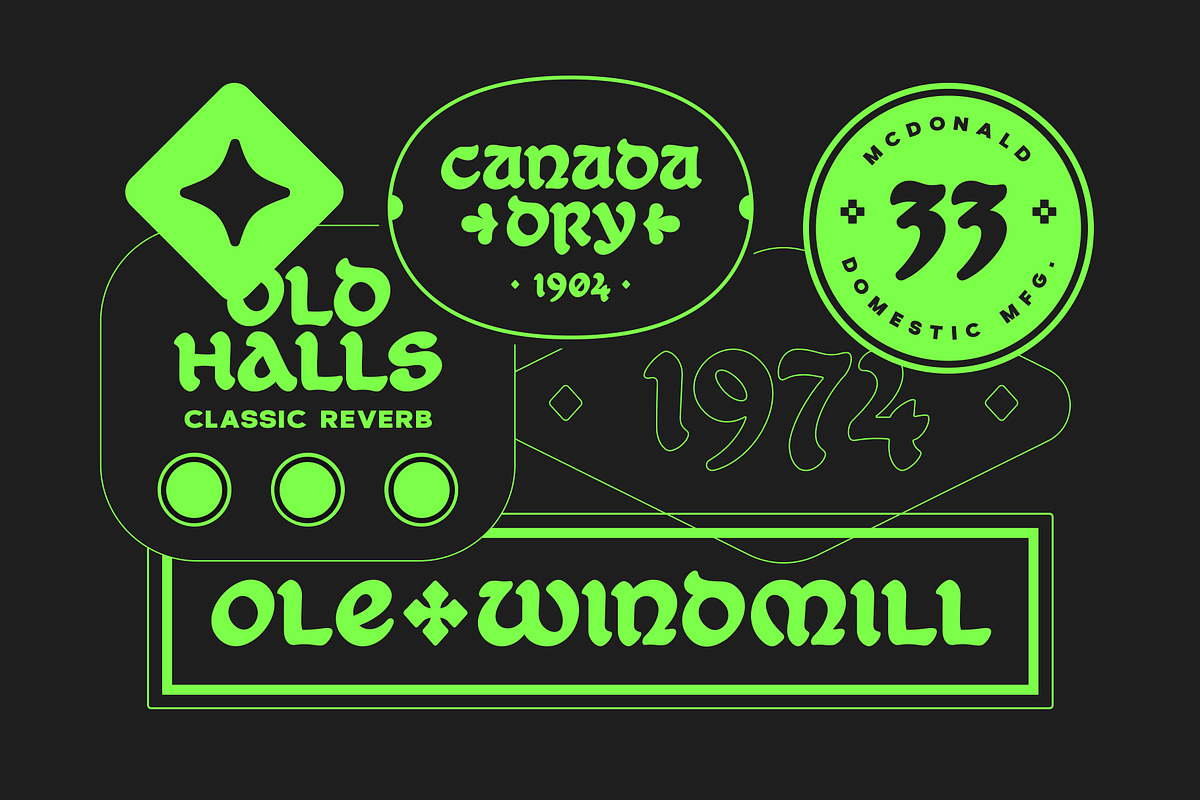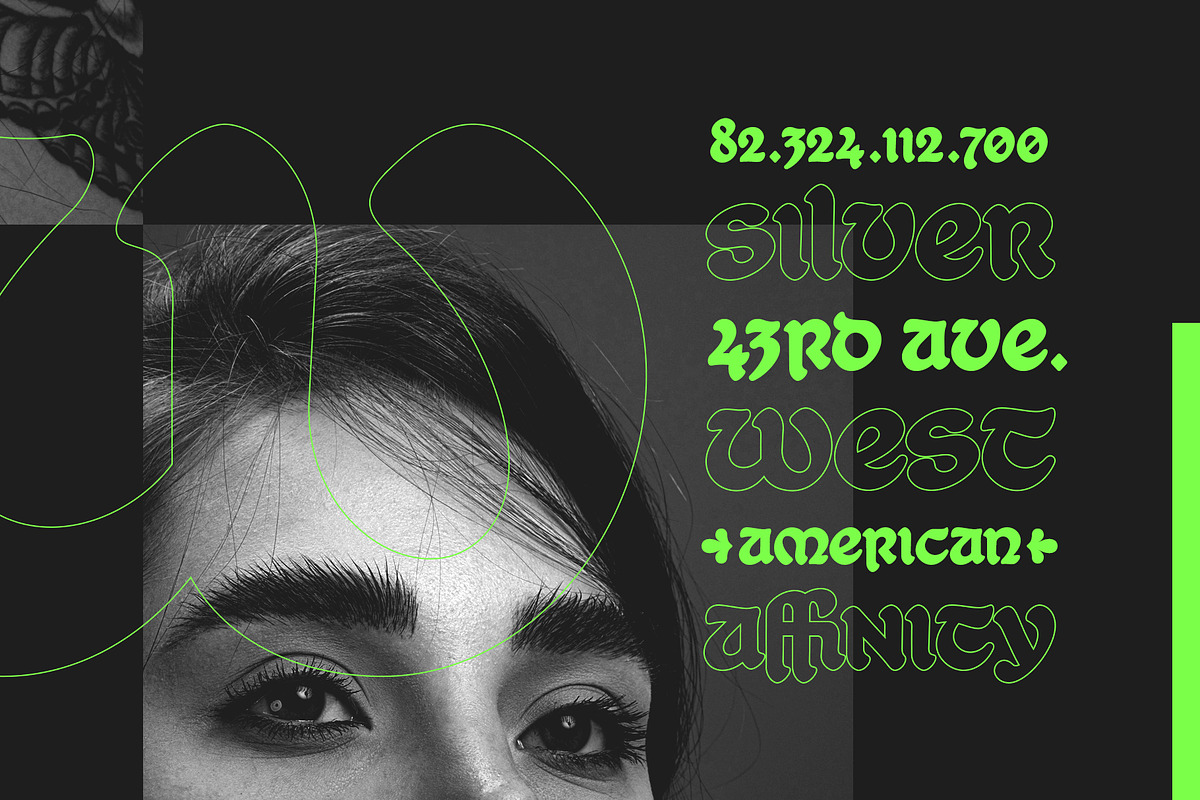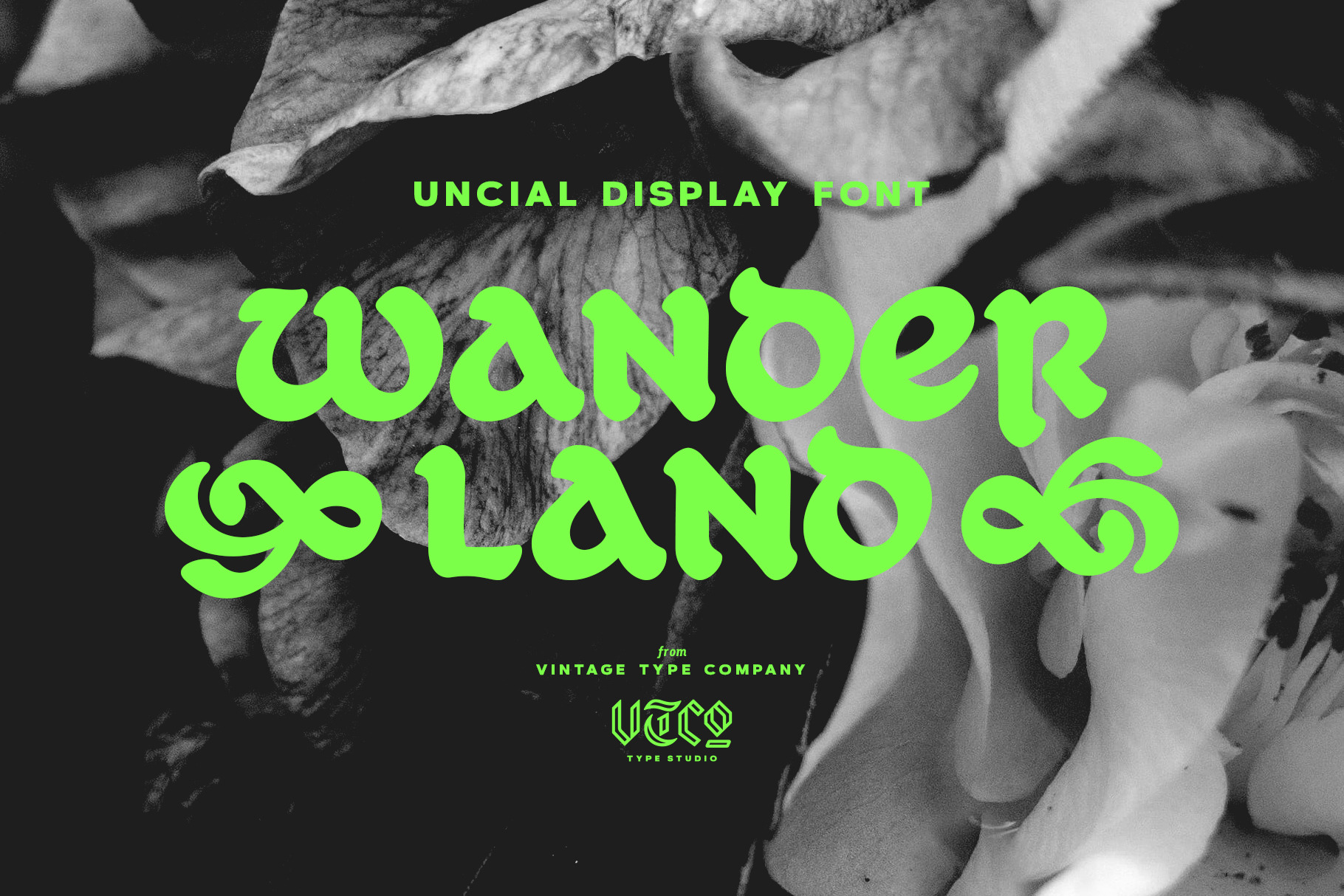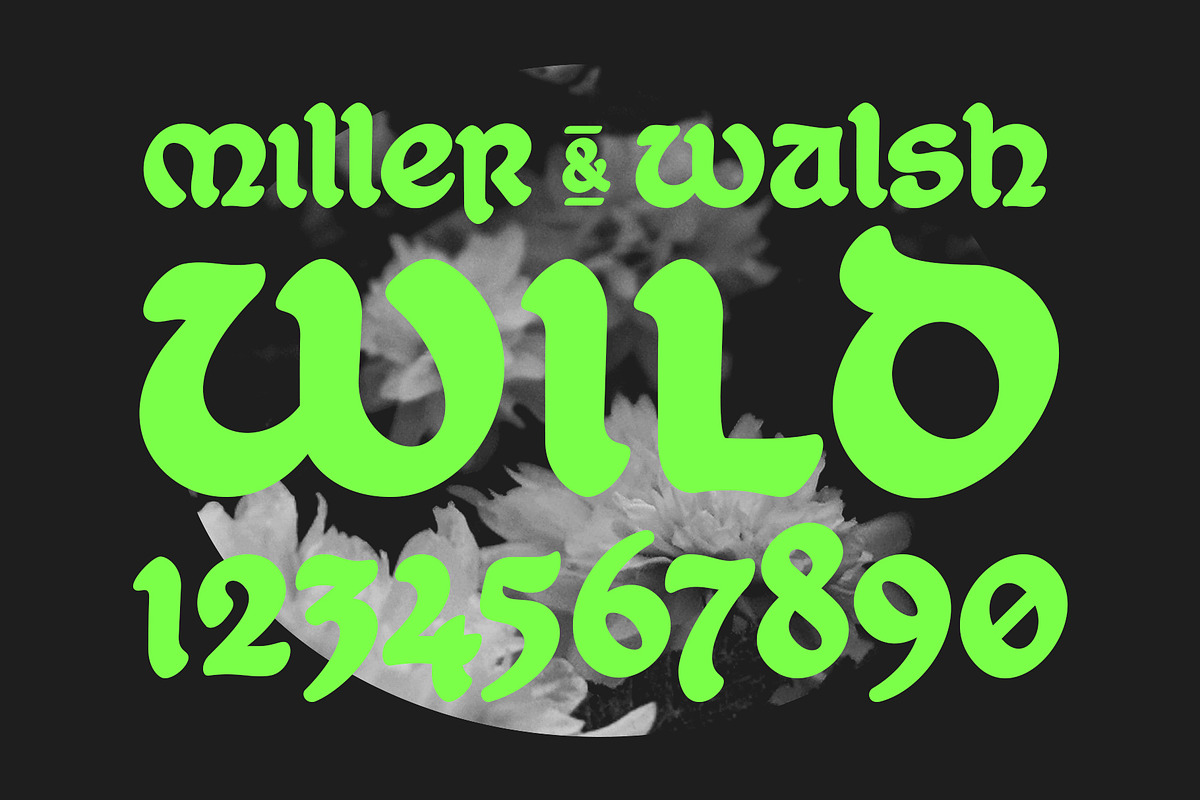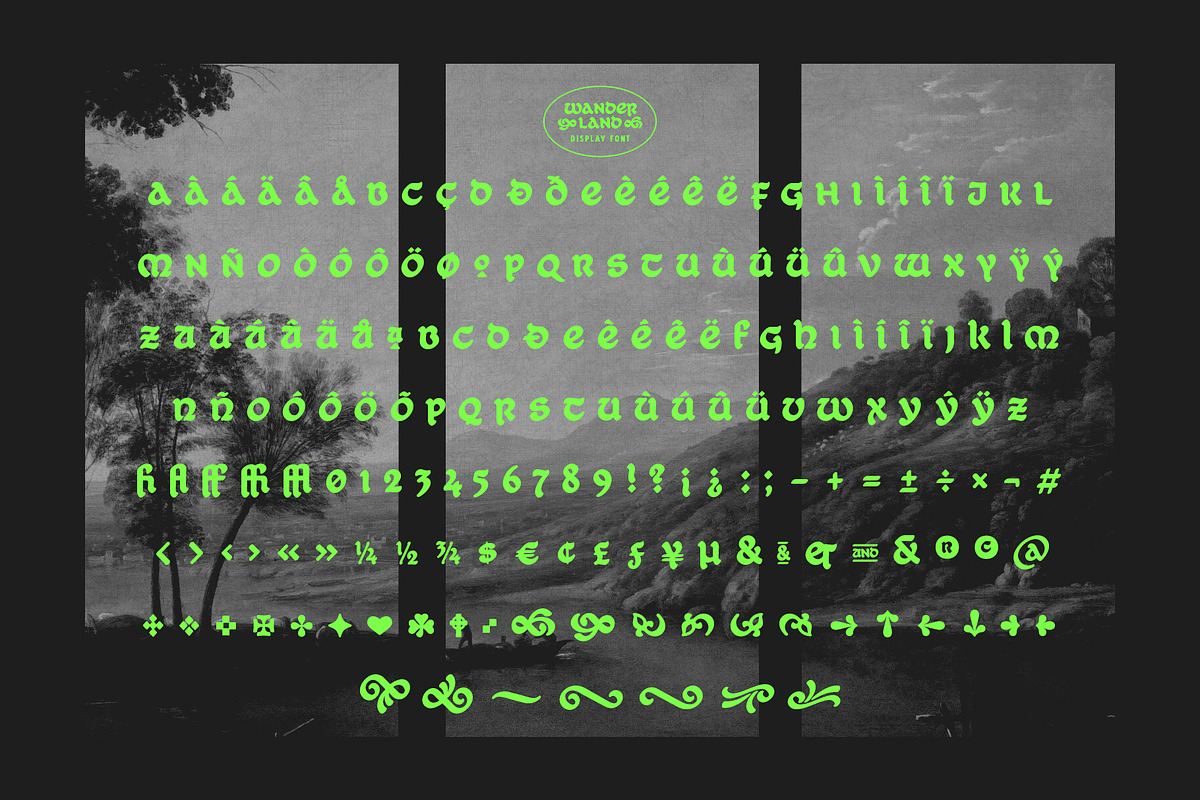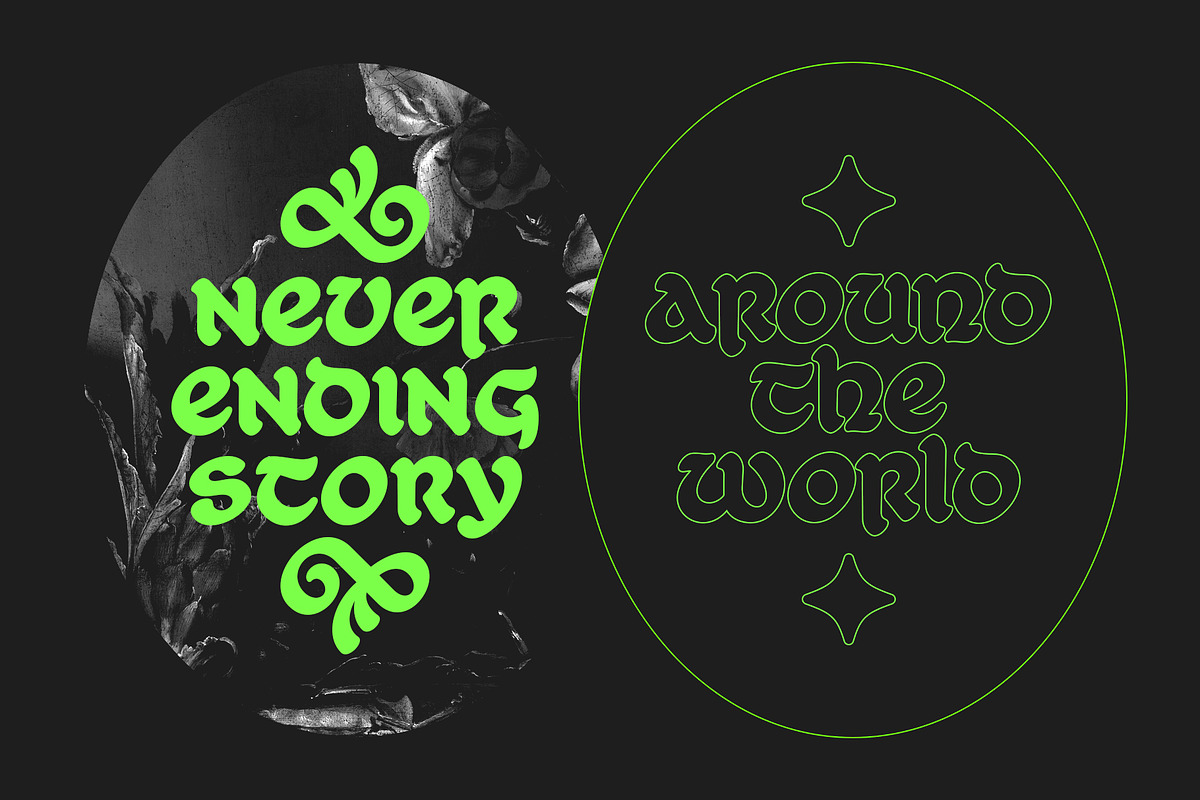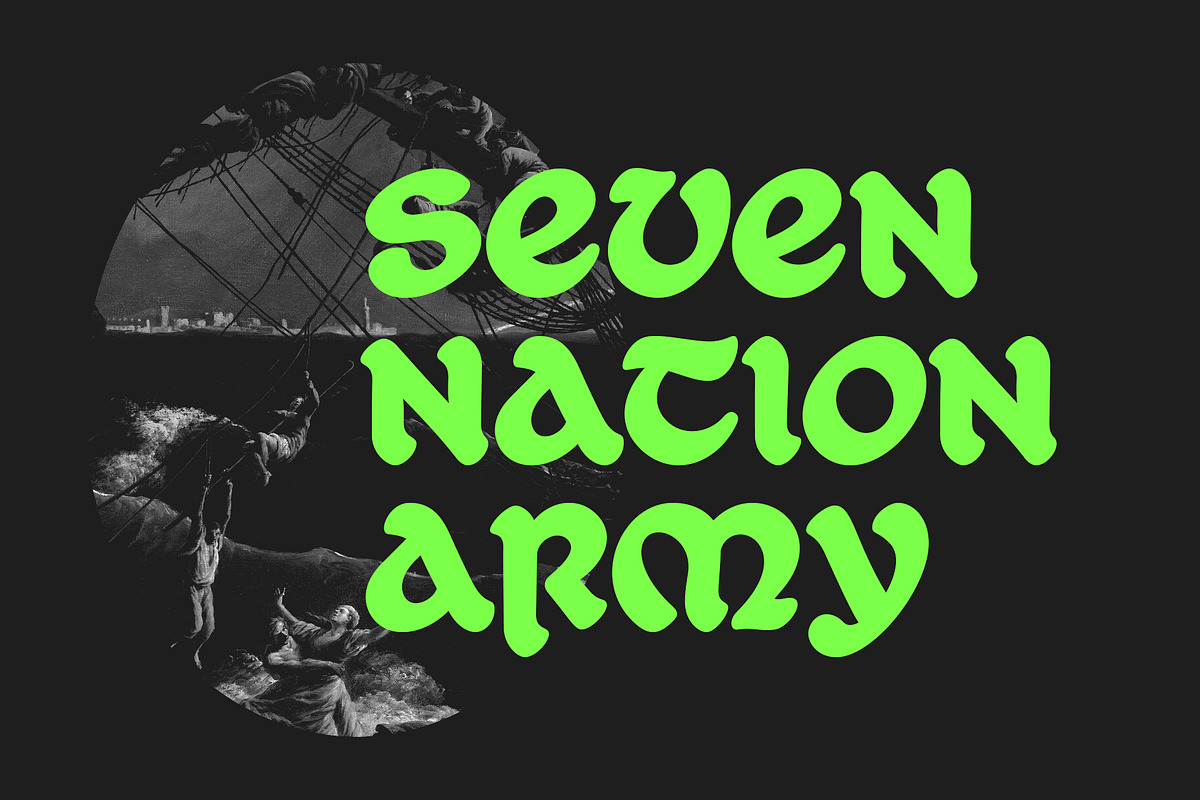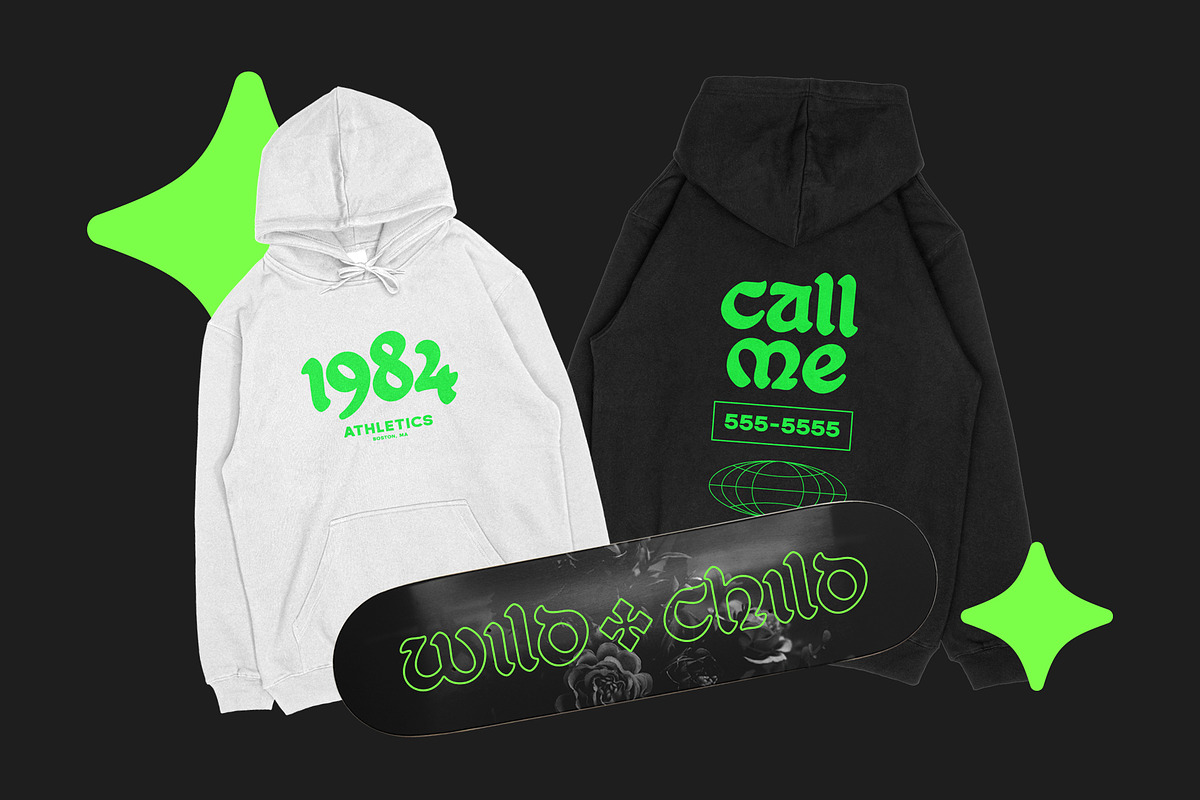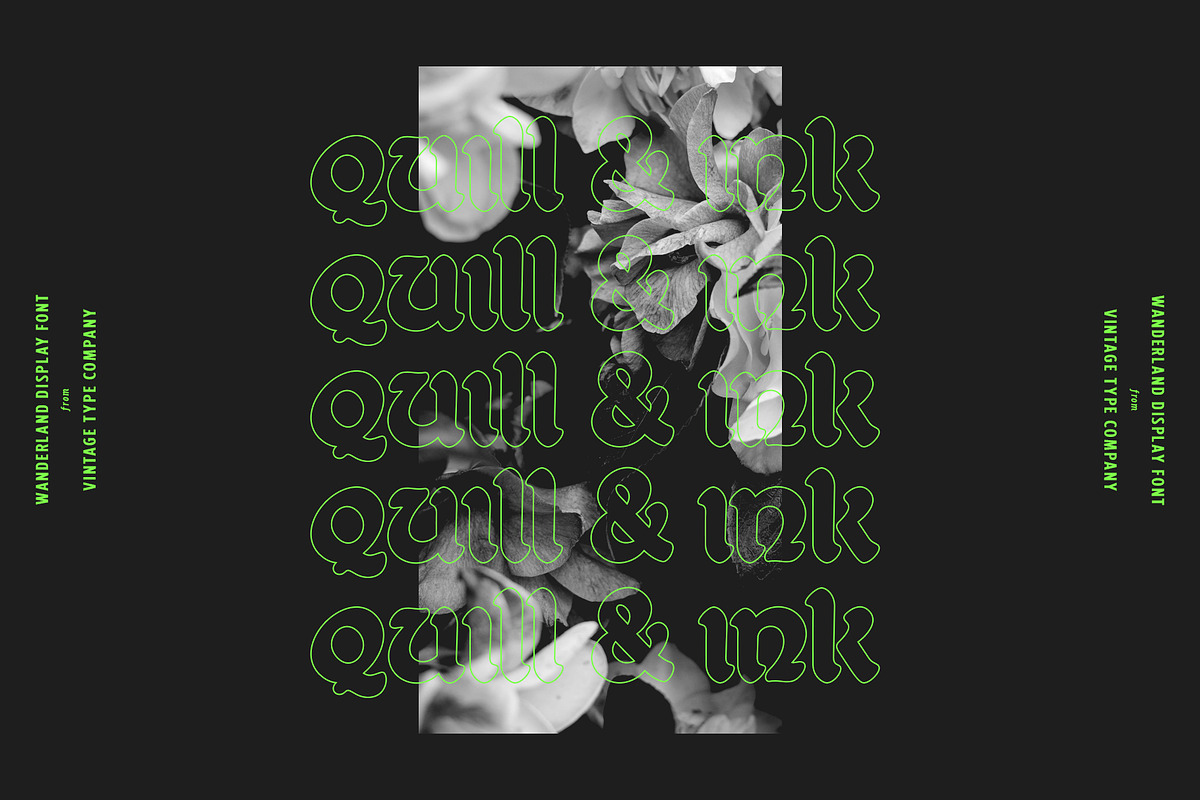
Wanderland Display Font
Wanderland Display Font is an inky, uncial display typeface with 271 characters, Adobe Latin 1 language support, and a small collection of swashes, ornaments, and alternates.
As a modern take on an old style, Wanderland makes a great font choice for bold signage, branding & logo designs, cover designs, video titles, and label & packaging designs.
Designed for use in large sizes with soft corners for a vintage, ink-bled aesthetic.
Activate the included ornaments and swashes with the Swash OpenType feature and by using the numerals and A to I of the alphabet.